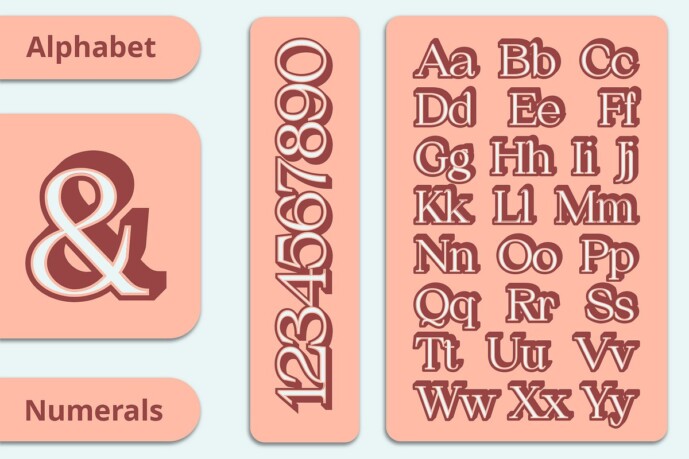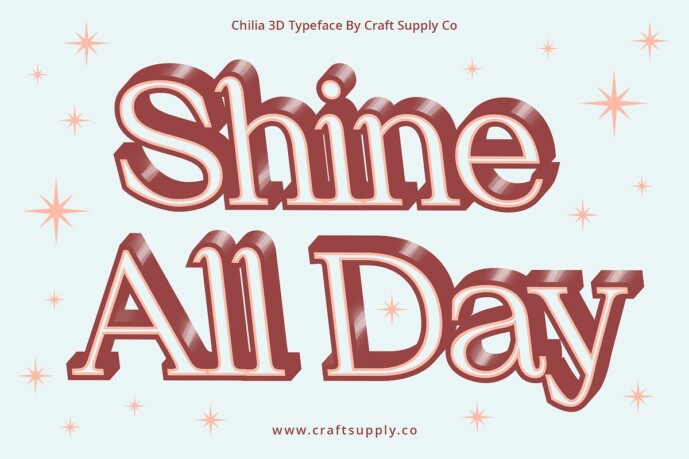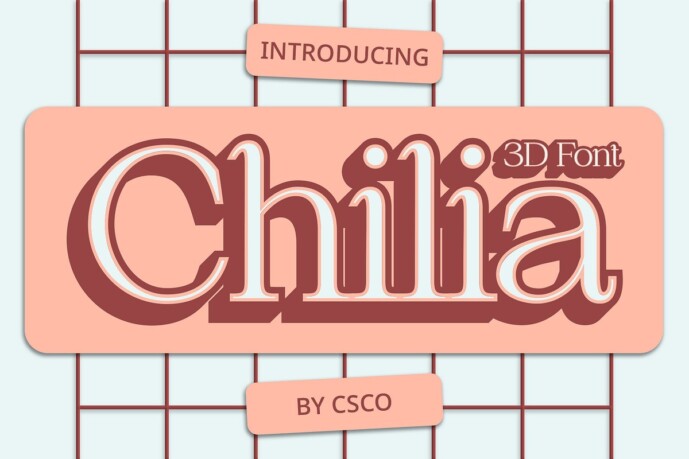
Chilia 3D Font
Chilia 3D Font: A Stunning Blend of Serif and Dimension. Distinctive Serif Design Chilia 3D presents a serif typeface with moderate contrast, offering a balanced and harmonious appearance. Its timeless serif features lend a touch of elegance to any design.
Enhanced with 3D Effects This font is elevated with captivating 3D effects, adding depth and dimension to each character. The combination of traditional serif elements and modern 3D technology creates a unique visual impact.
Perfect for Eye-Catching Display Tailored for display purposes, This font is perfect for catching the eye in various contexts. Whether used in headlines, posters, or digital banners, its 3D-enhanced serif style ensures maximum attention-grabbing potential.
Versatile Application Beyond its striking appearance, This font offers versatility in application. From branding projects to editorial design, its moderate contrast and 3D effects make it suitable for a wide range of design needs.
Timeless Elegance Meets Modern Dimension This font combines timeless serif elegance with modern 3D dimension, making it a versatile and eye-catching font for display purposes. With its balanced design and captivating effects, Chilia 3D adds depth and sophistication to any project. Step into the world of Chilia 3D and elevate your designs with its unique charm.